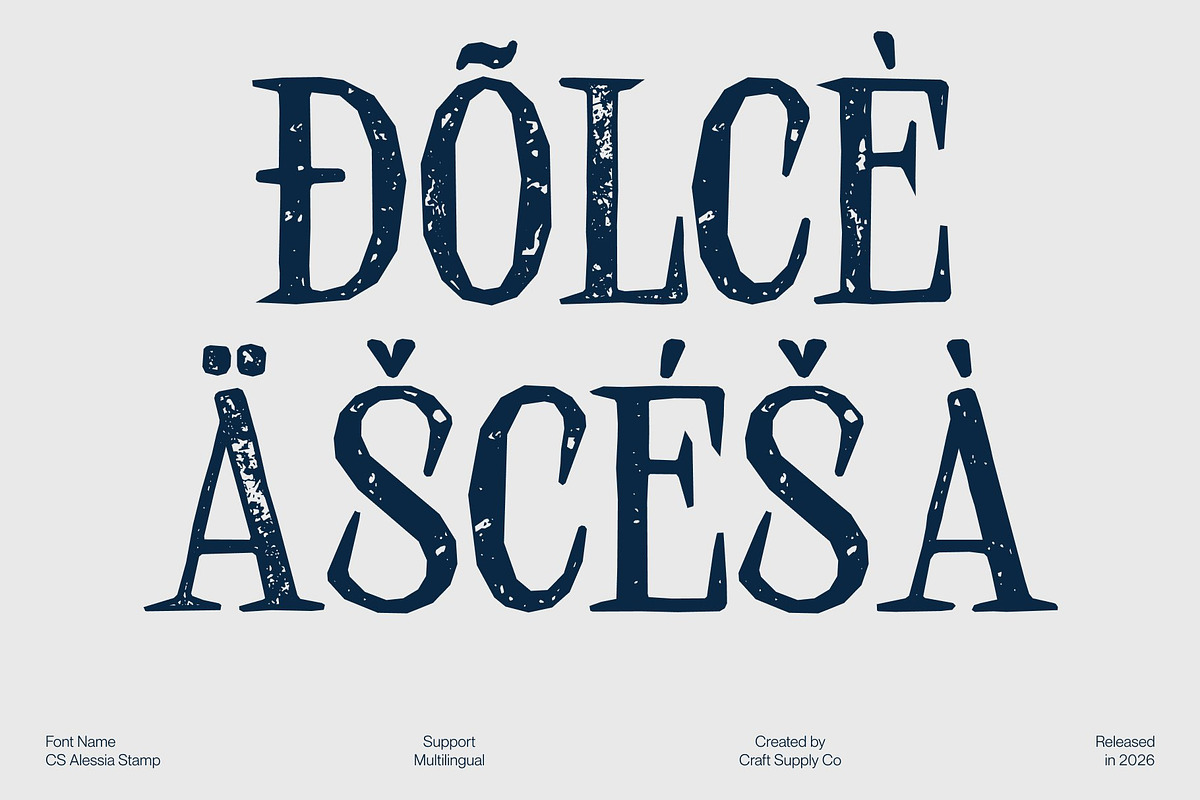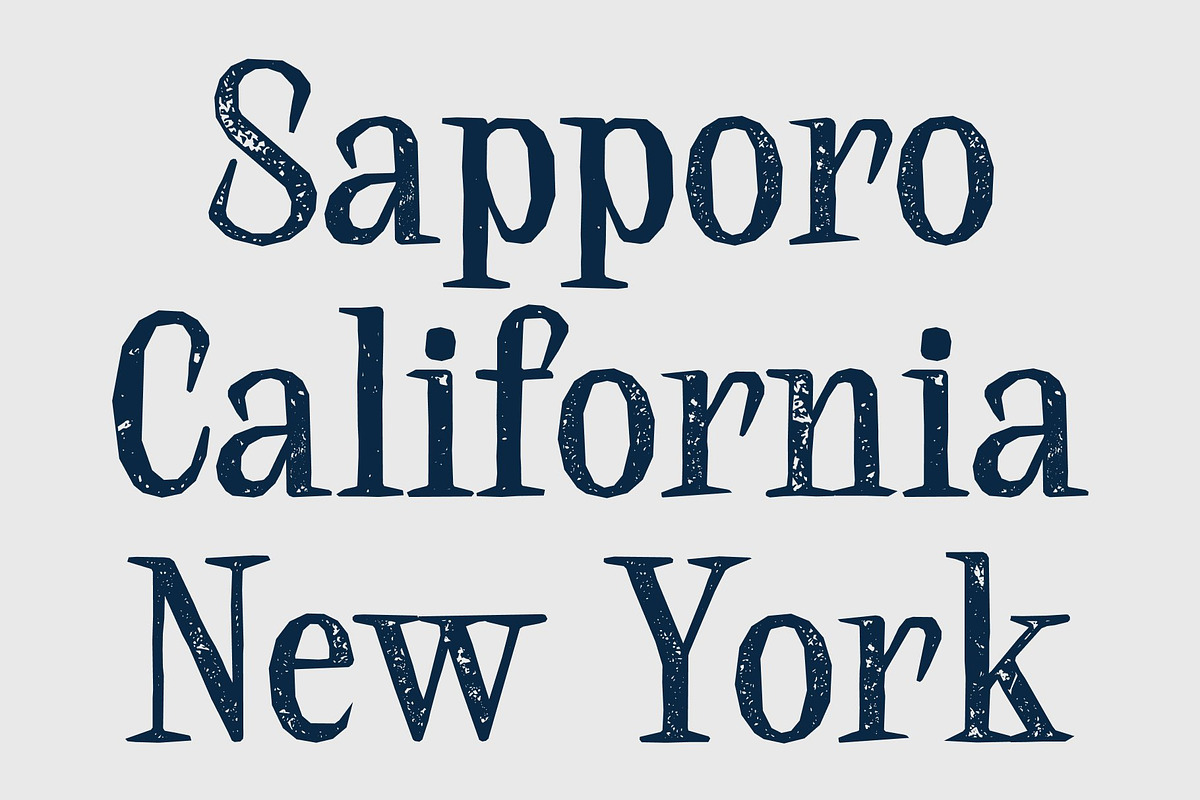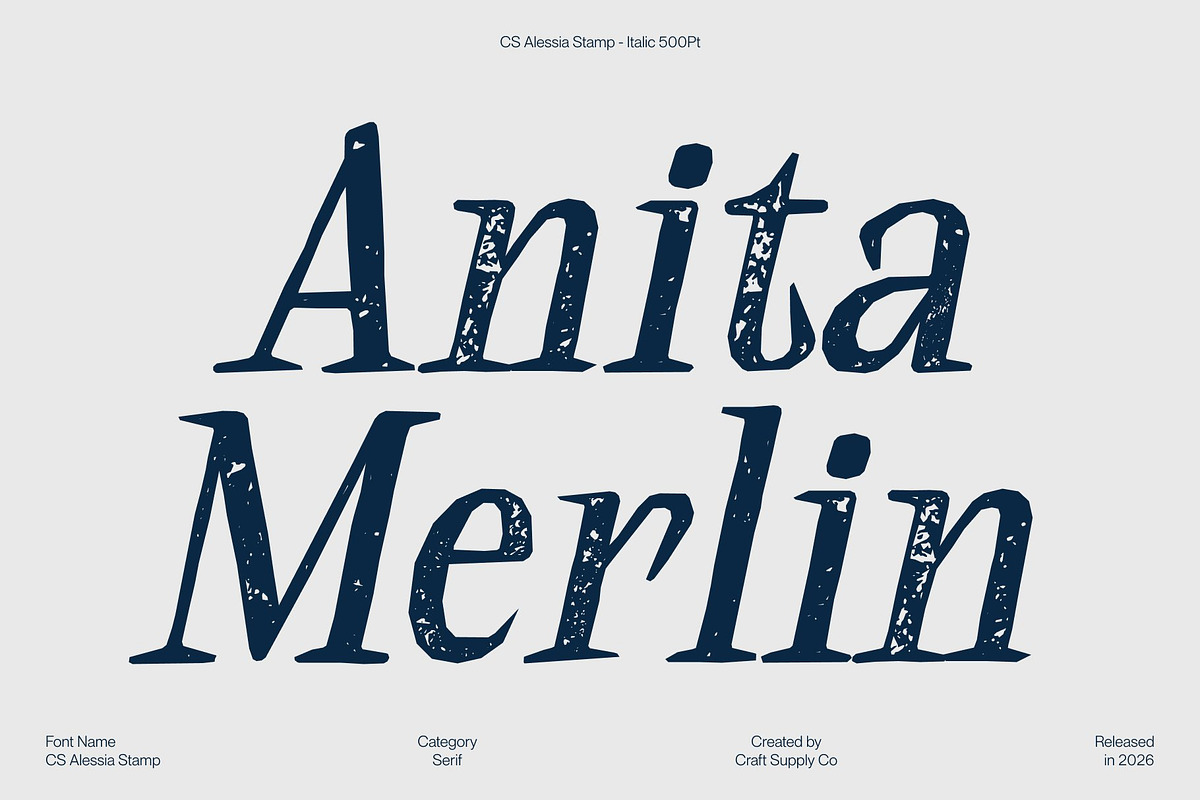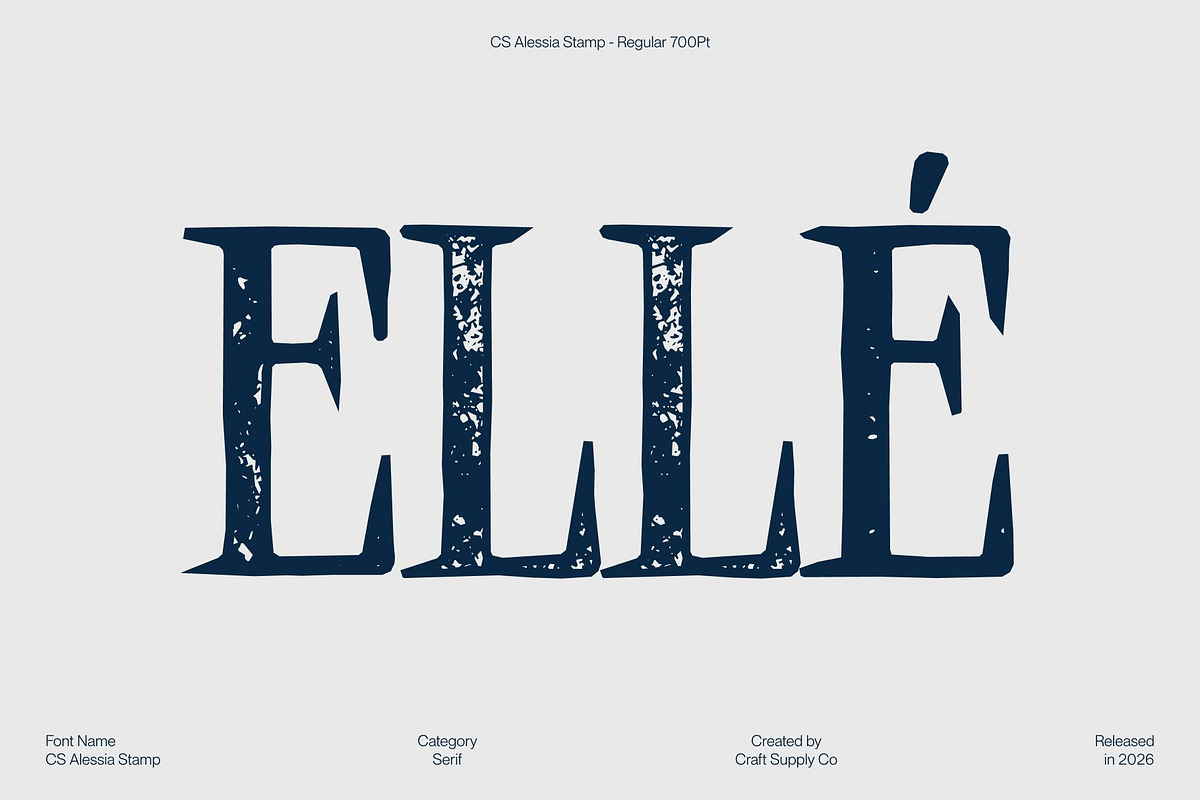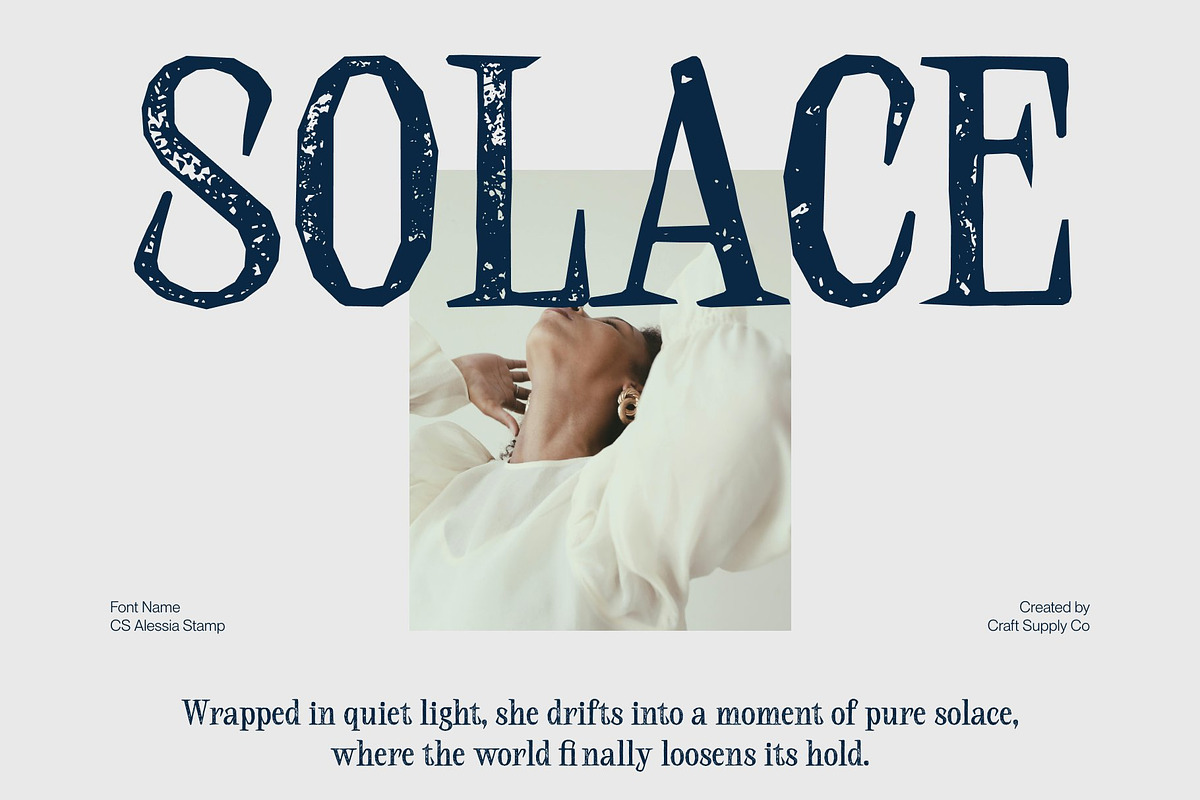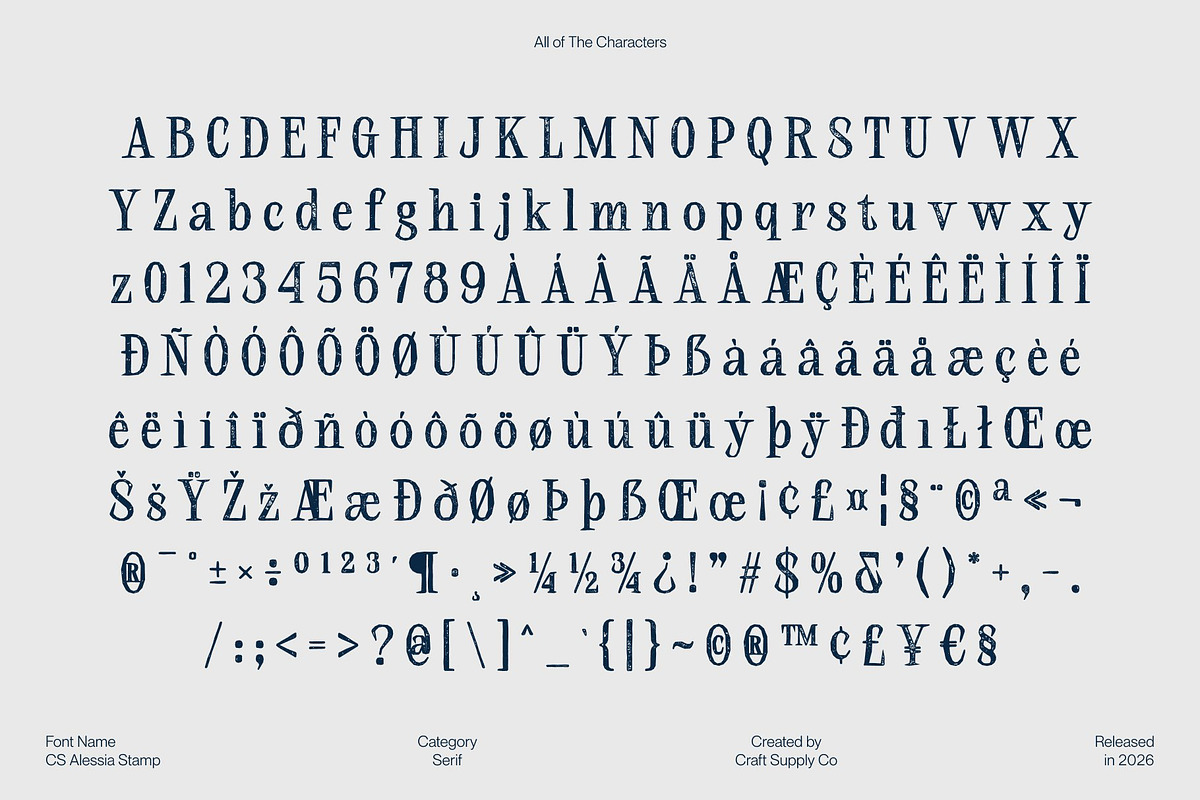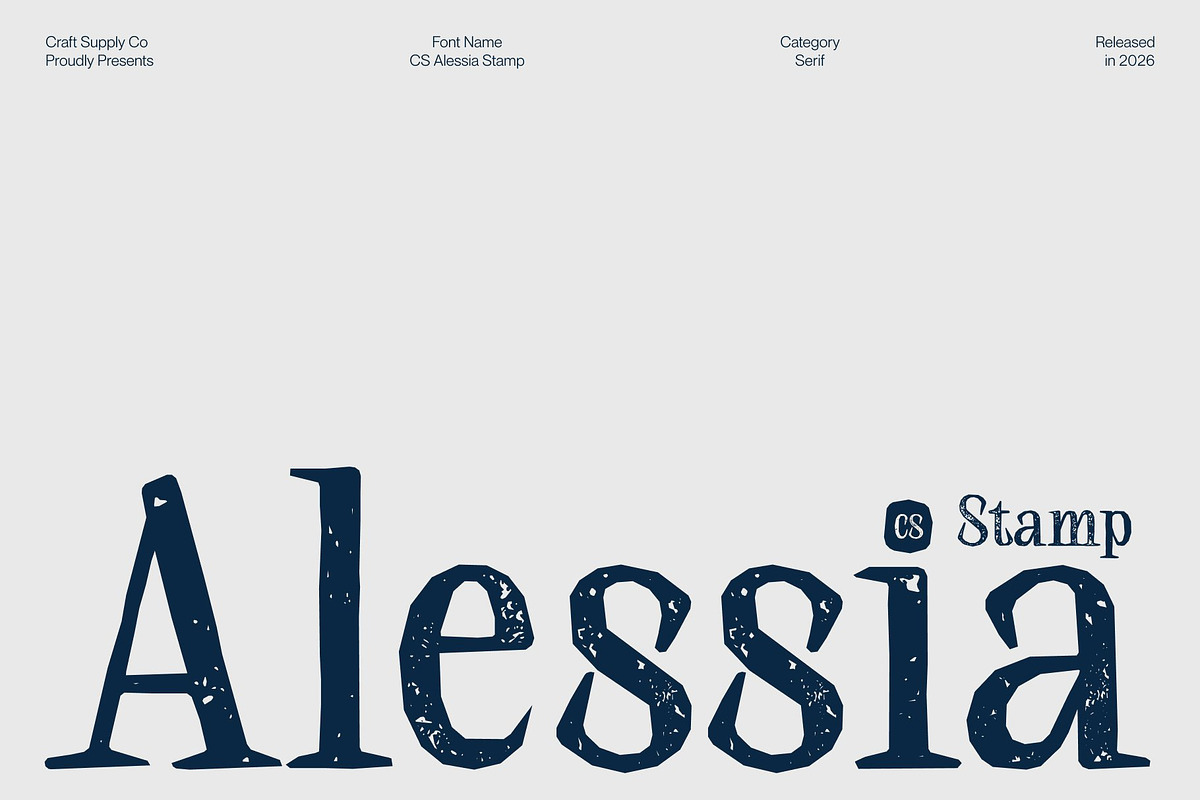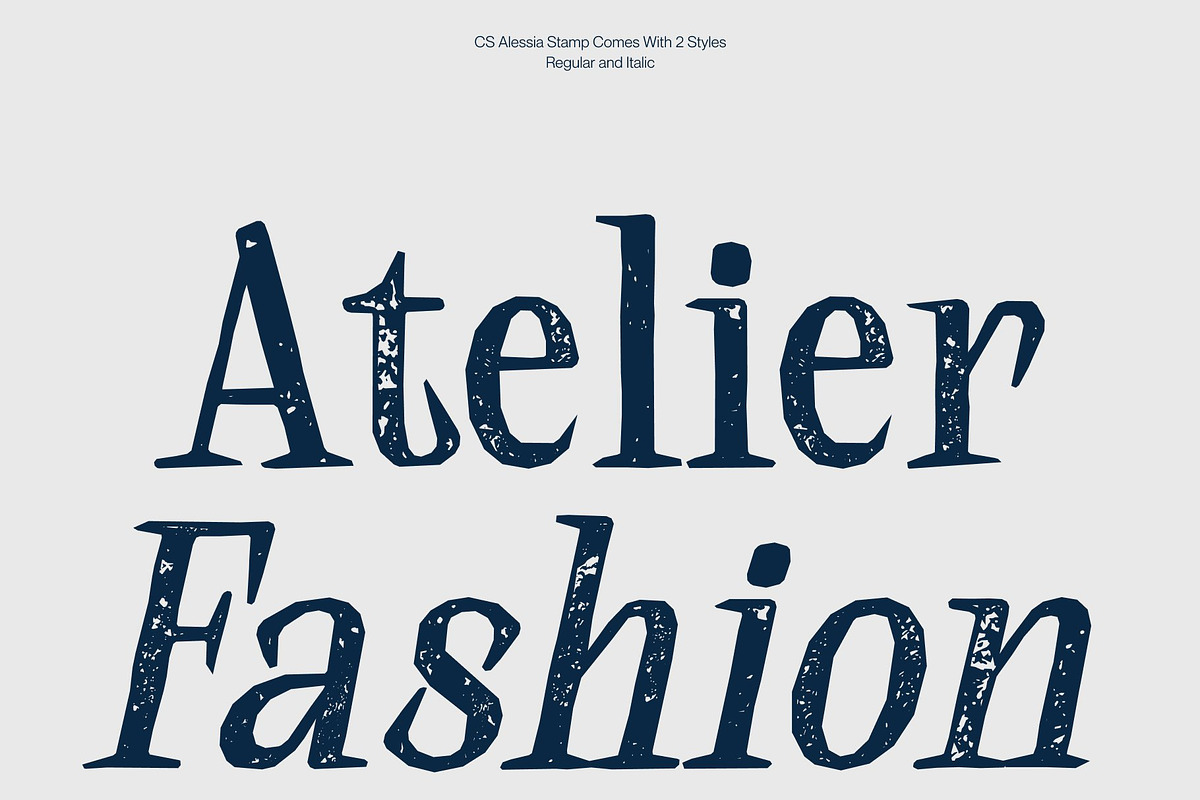
CS Alessia Stamp
CS Alessia Stamp – Elegant Font: Timeless Sophistication and Refined Luxury Modern Serif with Long, Refined Serifs and Stamp Texture This is a modern serif font crafted to express elegance, sophistication, and refined luxury. Defined by its long, graceful serifs and carefully sculpted letterforms, this typeface combines sharp precision with flowing curves. Enhanced by a subtle stamp effect, the font gains an organic texture and slightly weathered finish, adding depth, character, and a handcrafted vintage nuance to its polished structure.
Graceful Beauty with Timeless Character** The elegance of this font lies in its balanced proportions and elongated serifs that elevate every composition. The stamped texture softens the clean geometry, introducing warmth and authenticity without diminishing clarity. This fusion of refinement and tactile detail creates a timeless aesthetic that feels both classic and emotionally rich.
Luxury Aesthetic with Artistic Depth Designed to stand out in premium visual environments, delivers a sophisticated presence with added artistic personality. The high contrast between thick and thin strokes enhances readability, while the textured finish gives the font an expressive, editorial-quality feel perfect for designs that value detail, atmosphere, and exclusivity.
Perfect for High-End Branding and Elegant Editorials Ideal for luxury branding, fashion editorials, and refined print materials, this font elevates logos, headlines, and layouts with confidence and grace. Its combination of modern serif elegance and vintage stamp character makes it a versatile choice for designers seeking a timeless, and visually captivating typographic voice.